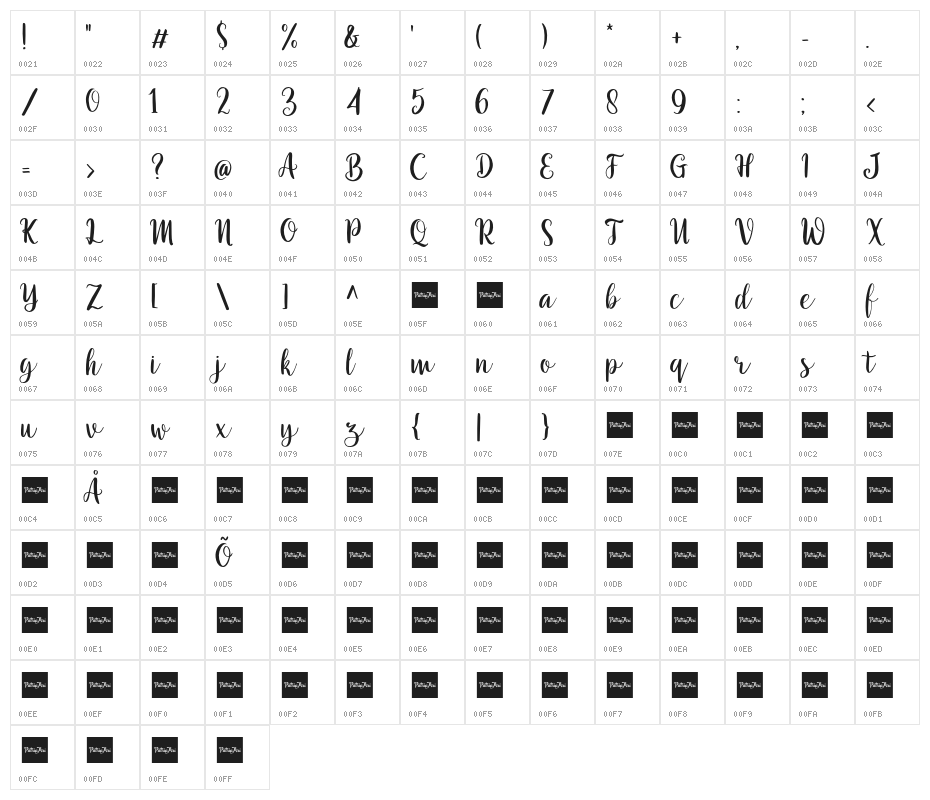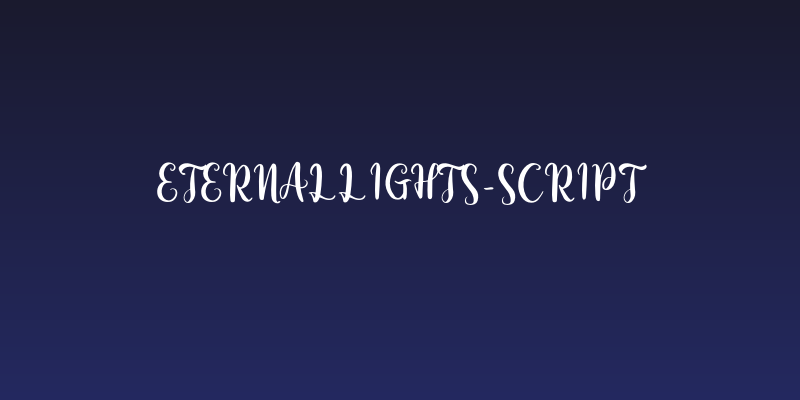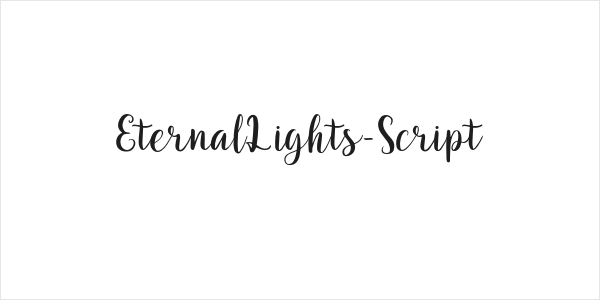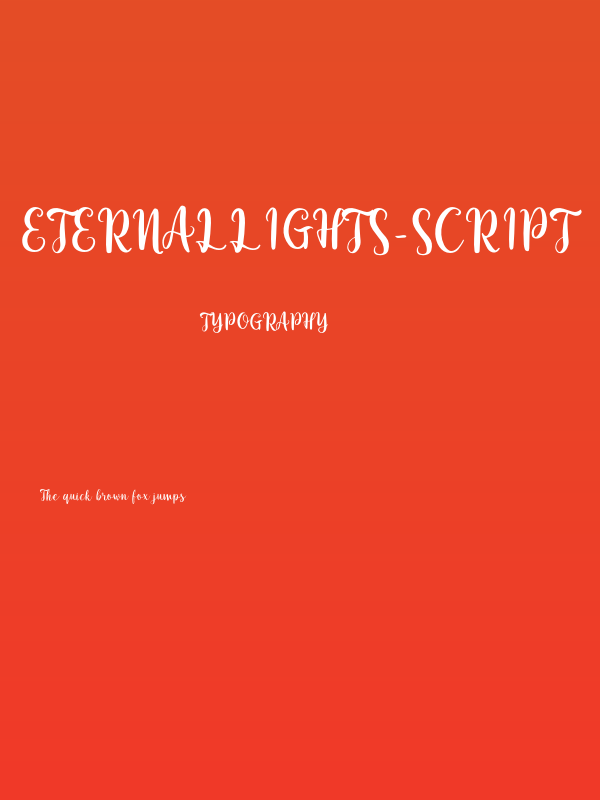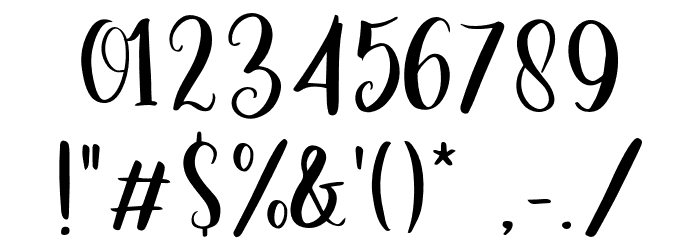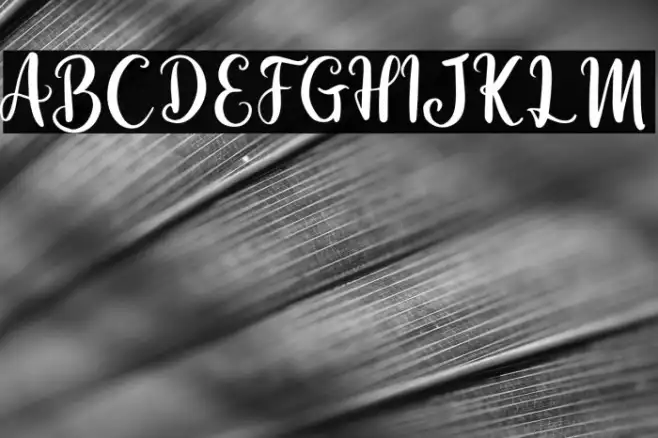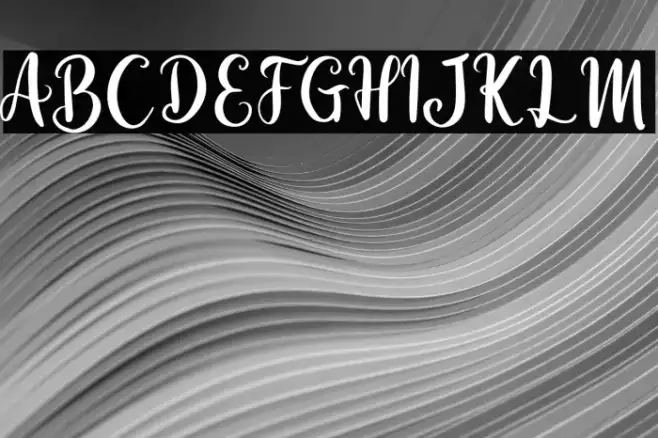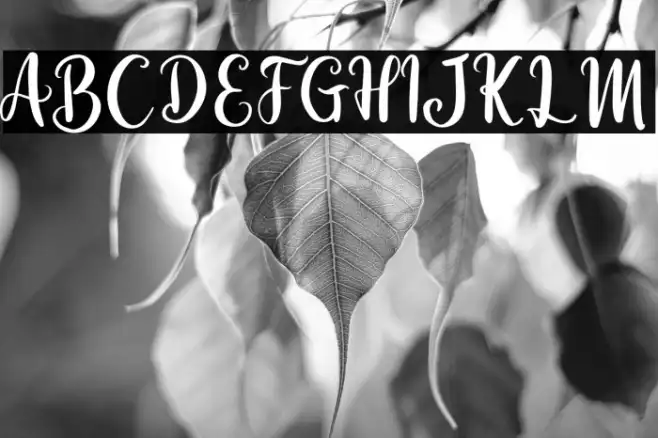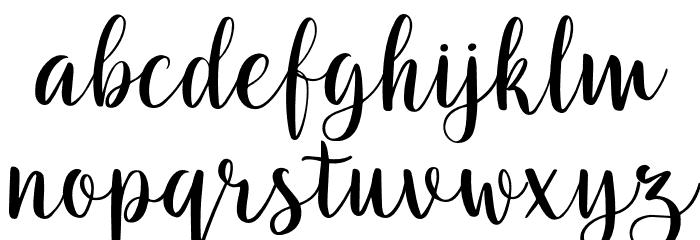
EternalLights-Script Font
EternalLights-Script Description
This elegant script font features a flowing, cursive style with smooth, connected strokes that exude a sense of grace and sophistication. The uppercase letters are bold and slightly ornate, with distinctive loops and flourishes that add a touch of flair. The lowercase letters maintain a consistent flow, with gentle curves and a harmonious balance between each character. Numbers and special characters are designed with the same fluidity, ensuring a cohesive look across all text. The font's overall appearance is both classic and modern, making it versatile for various design applications.
| Overall Style | Elegant, Modern |
| Proposed Projects | Ideal for wedding invitations, elegant branding, greeting cards, and decorative quotes. |